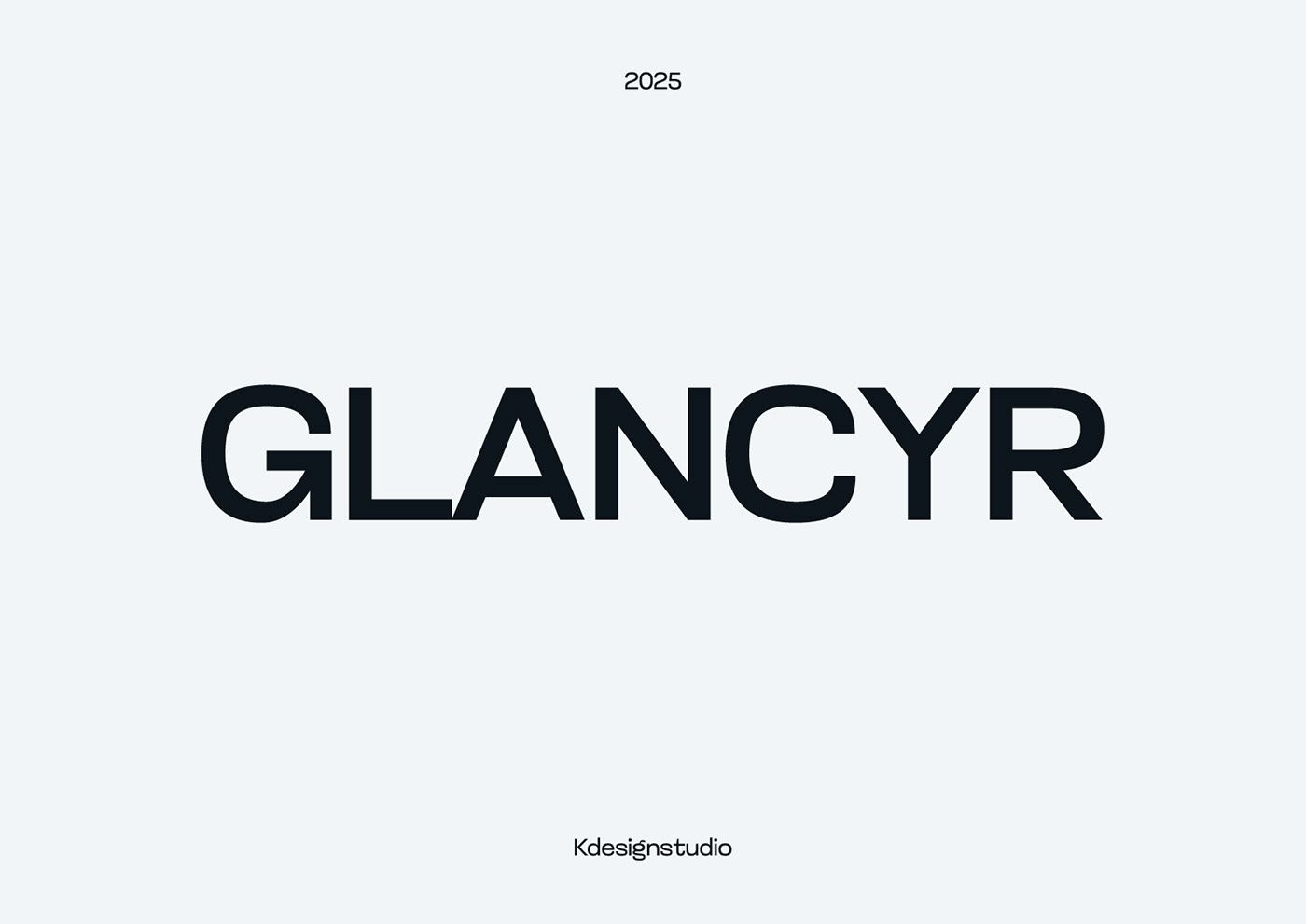
Glancyr (Typeface)
Glancyr Neue Font is a simple, geometric and versatile font inspired by Futura and Avenir. Made from font designer named Drizy. This font stands out with it’s clean lines, geometric shapes, and contemporary aesthetics, making it perfect for a wide range of design projects.